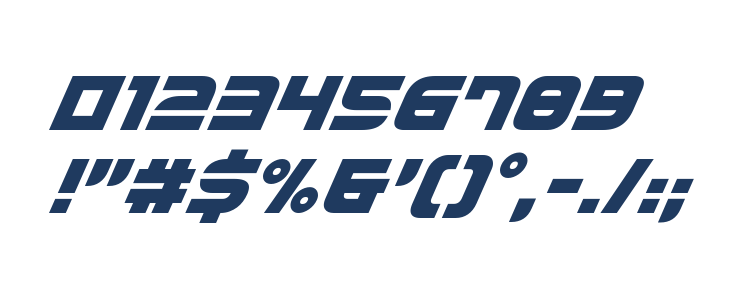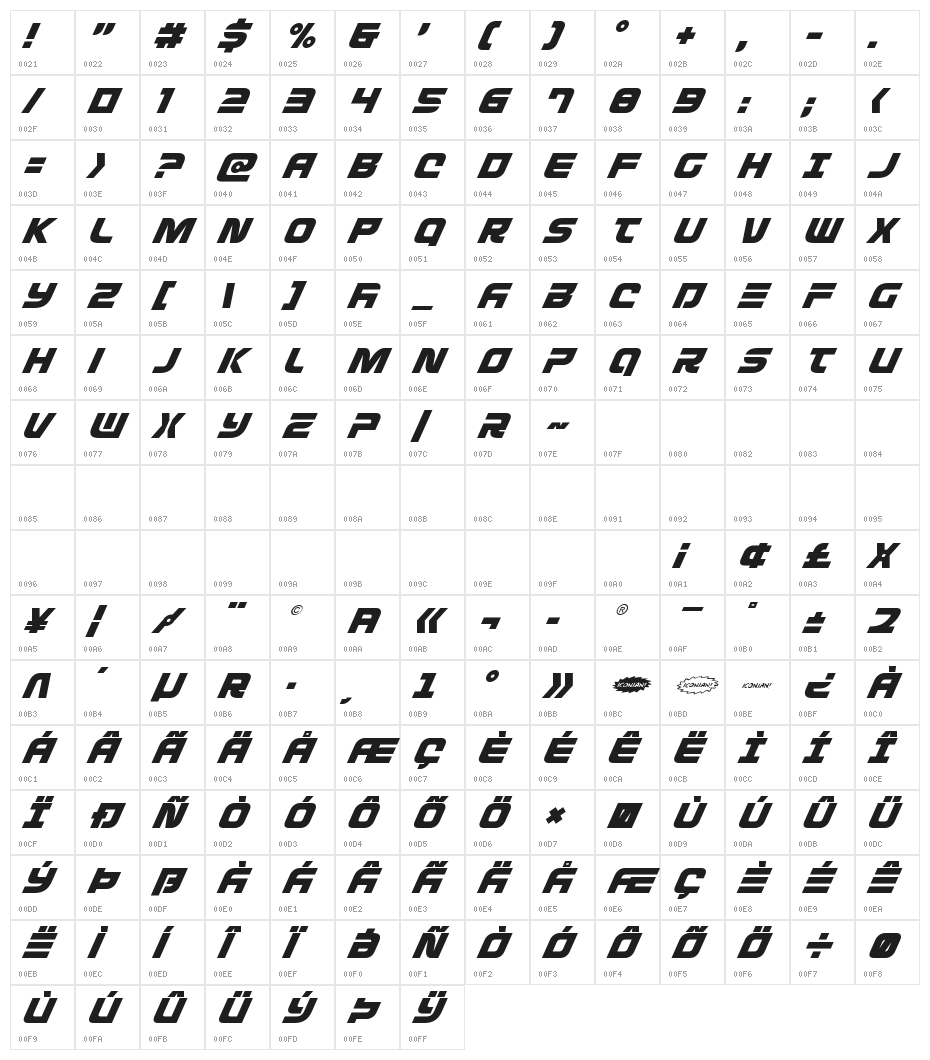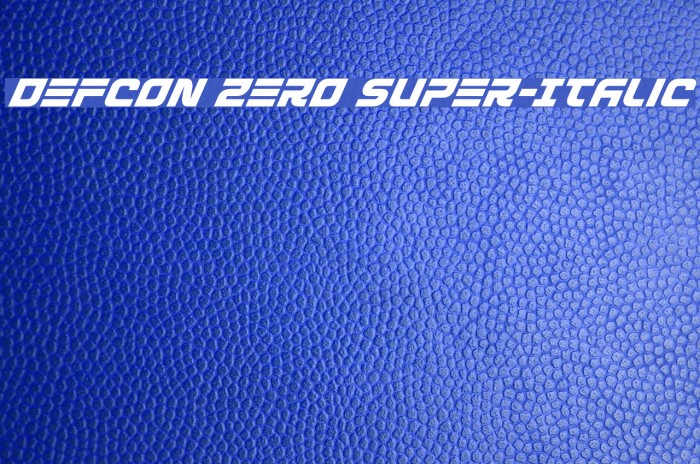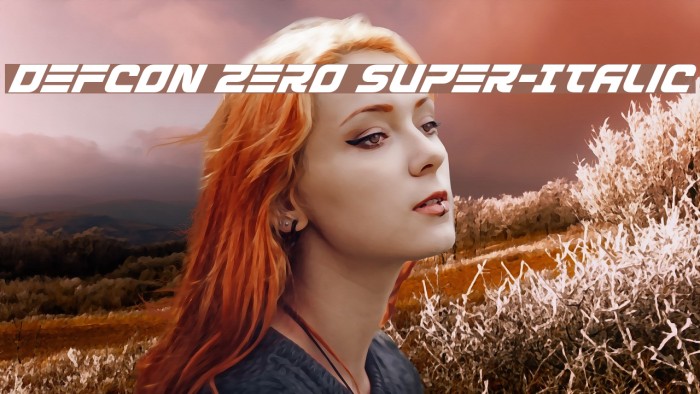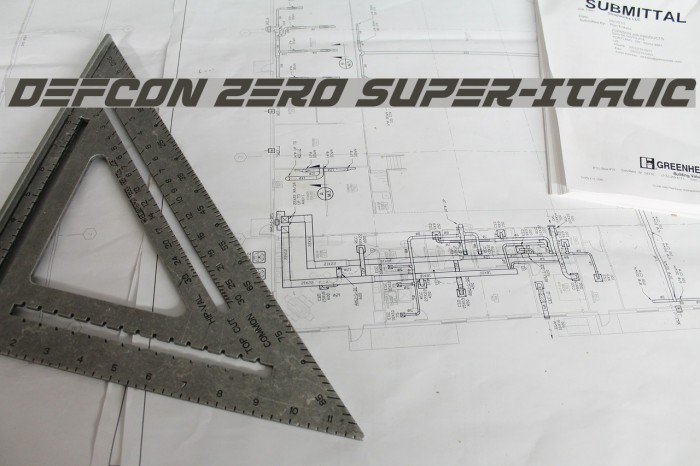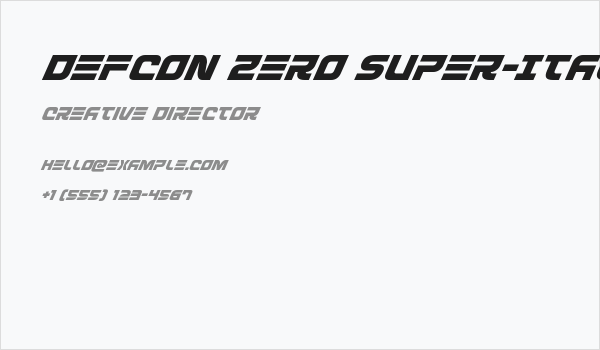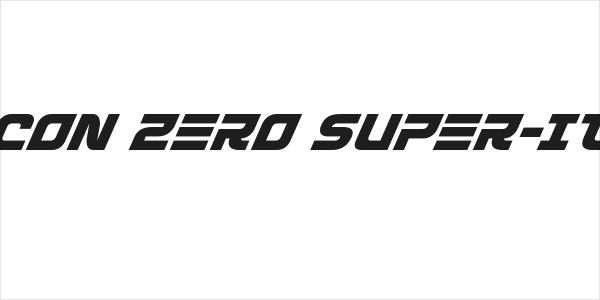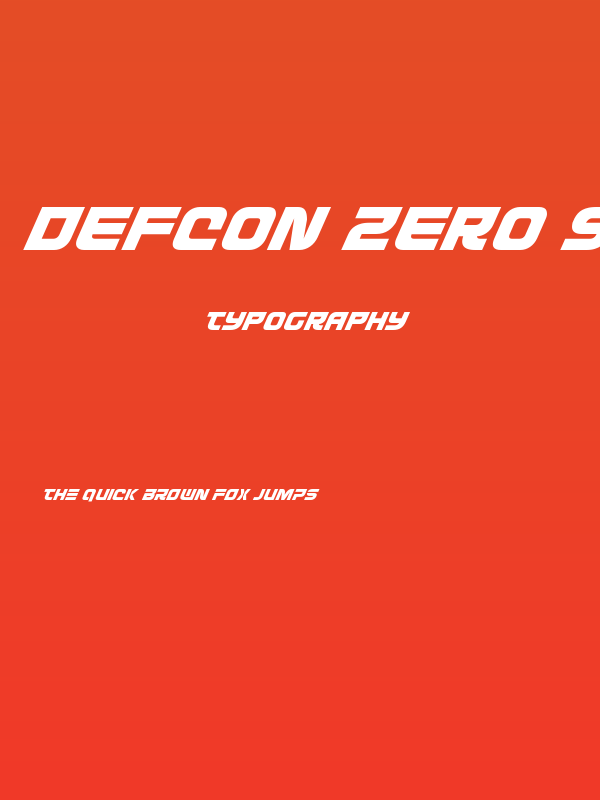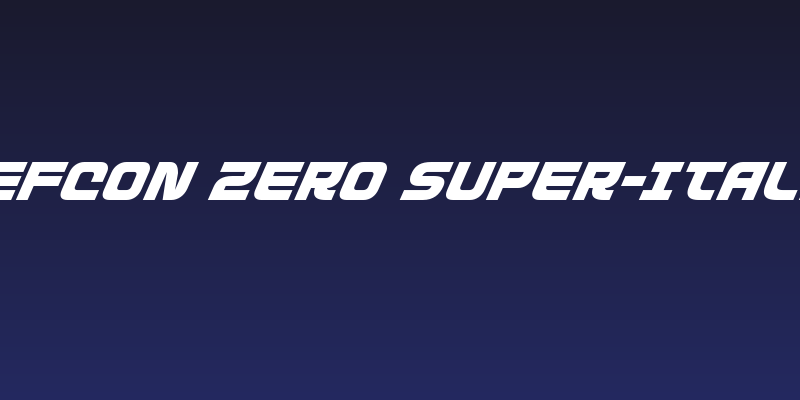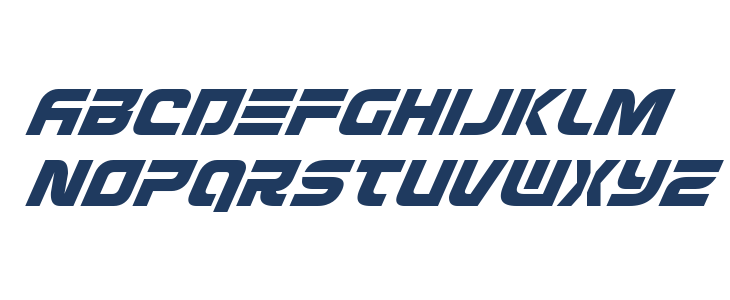
Defcon Zero Super-Italic Font
Defcon Zero Super-Italic Description
This font features a bold, italicized style with a futuristic and dynamic appearance. The characters are sharply angled, giving a sense of motion and speed. The uppercase letters are particularly striking, with a strong geometric influence that is consistent throughout the alphabet. The numerals and special characters maintain this bold and angular design, ensuring uniformity across all glyphs. The overall aesthetic is modern and edgy, making it suitable for projects that require a strong visual impact.
| Proposed Projects | Ideal for sci-fi themed designs, video game titles, sports branding, and technology-related projects. |